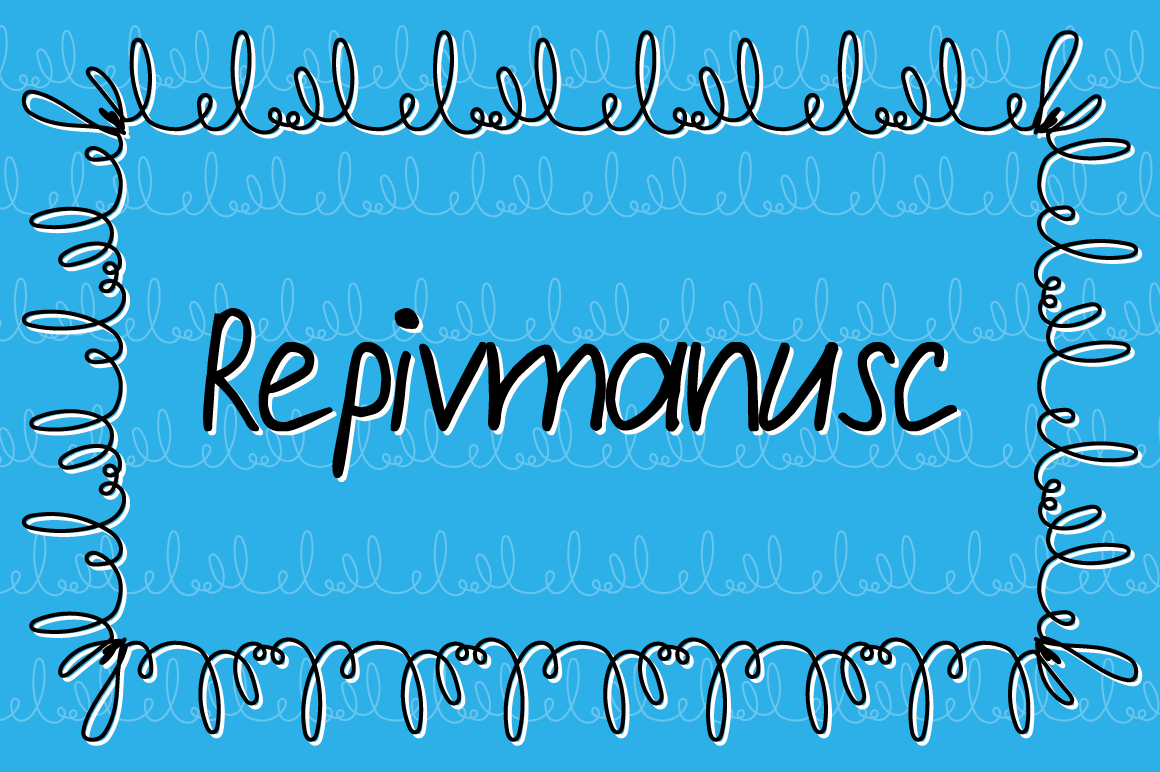
HomeScript FontsRepivmanusc Font Script Fonts Repivmanusc Font FacebookXPinterestWhatsApp About Repivmanusc Font Repivmanusc is a fun handwritten script font, perfect for projects that need a relaxed and laidback appeal. DOWNLOAD ON CREATIVE FABRICAThis font is sold and delivered by Creative Fabrica. Font Canyon may earn a commission if you buy through this link. People also explored Samantha Font Appetizing Biscuits Font Summer Lightning Set Zero Font Summer Font Mensrea Quarantine and Chill Font Malaka Font Starlight Font 340 0 TagsRepivmanusc Font Previous articleOxygetrompal FontNext articleHamline Font LEAVE A REPLY Cancel reply Comment: Please enter your comment! Name:* Please enter your name here Email:* You have entered an incorrect email address! Please enter your email address here Website: Save my name, email, and website in this browser for the next time I comment. Personal Use Free Stone Garden Personal Use Free Read more about this font Black Personal Use Free Read more about this font Knox Personal Use Free Read more about this font Rare Knuckle Personal Use Free Read more about this font BLOG Transform Your Website: Elevate Your Typography with 7 Best Web Font Generators Are you ready to transform your website's typography from ordinary to extraordinary? Great! Today, we're diving into the world of web font generators, which... 5 Fonts That Will Dominate Design Trends in 2026 The 10 Best Handwriting Fonts to Add Personality to Your Designs Exploring Font Trends